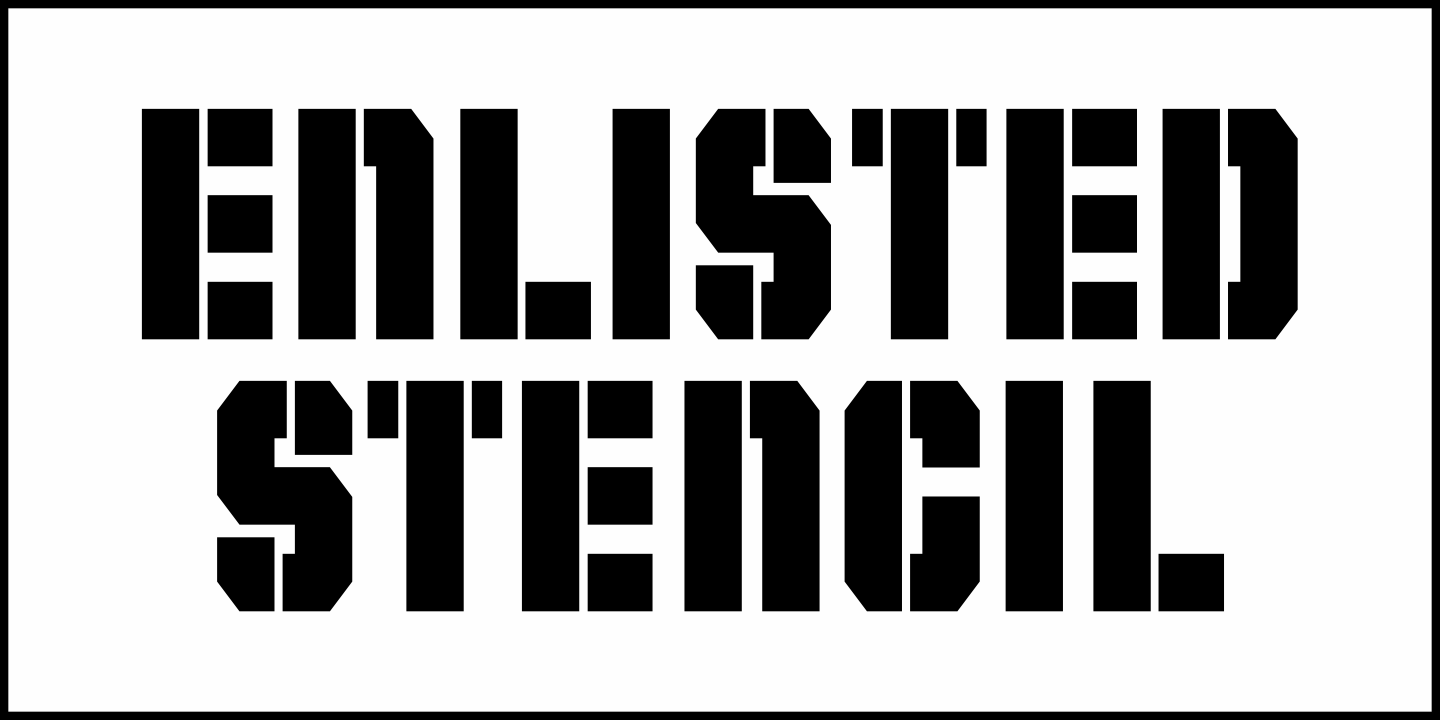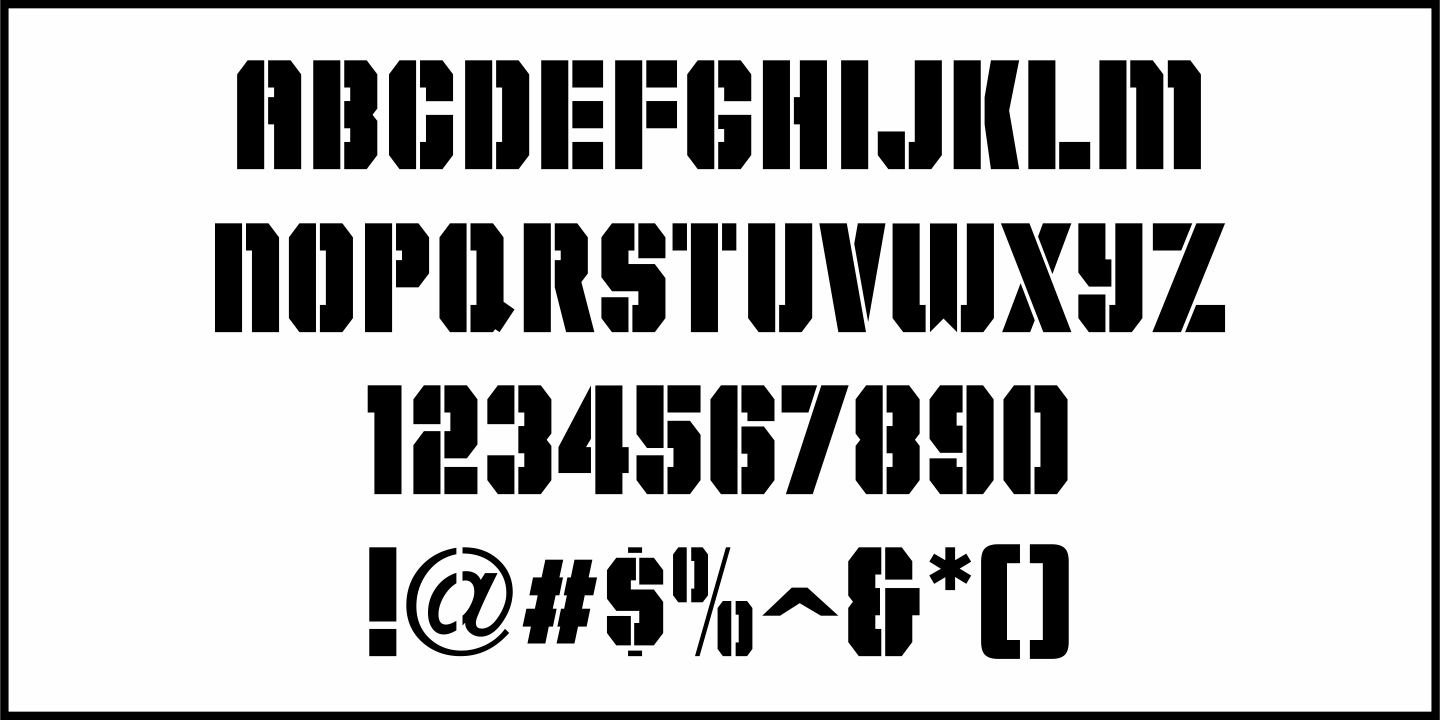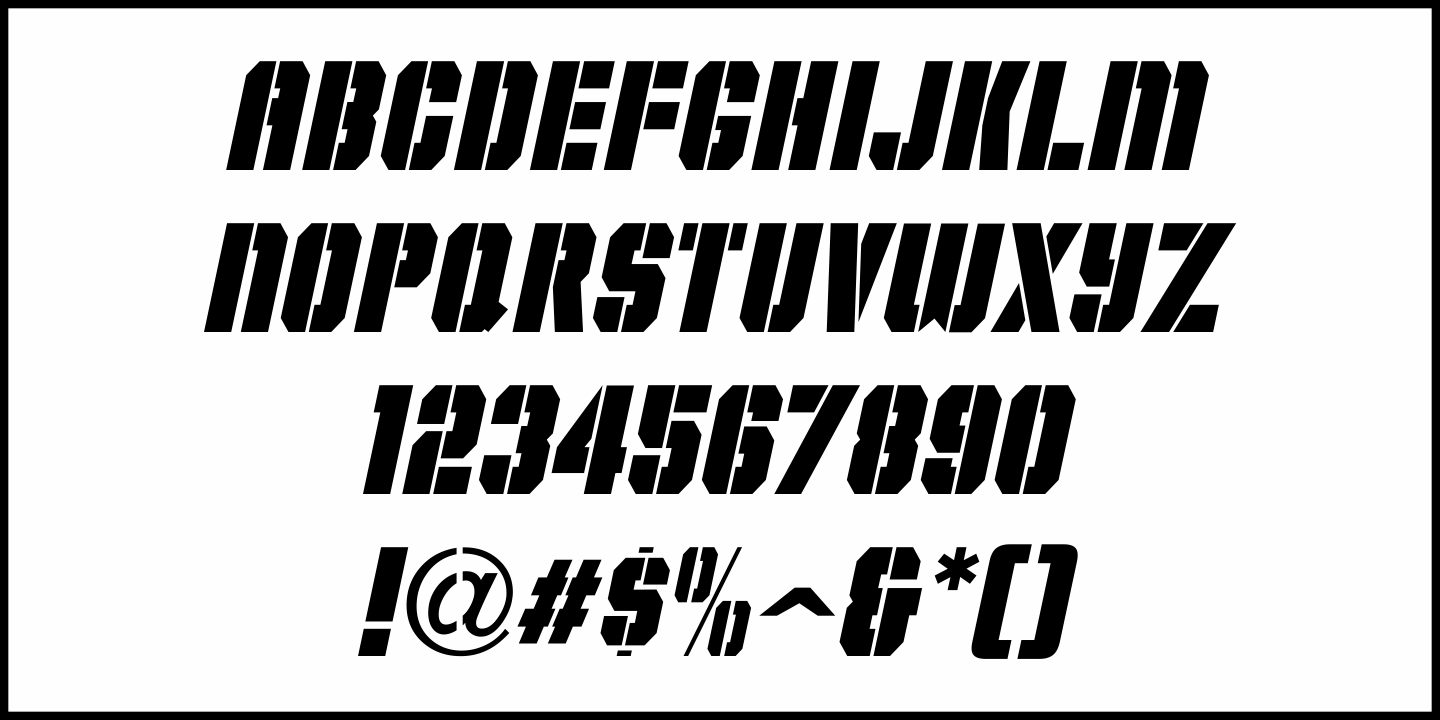
Enlisted Stencil
An unsold 1973 TV pilot for the series 'Catch 22” (based on Joseph Heller's 1961 book and the subsequent 1970 movie) had its title hand lettered in an extra bold stencil type style. Heller coined the phrase as a satire on absurd military rules and bureaucracy.
Although the show's title provided only five characters to work with, there was enough inspiration there to create the military styled Enlisted Stencil JNL, which is available in both regular and oblique versions.
According to Wikipedia: 'A catch-22 is a paradoxical situation from which an individual cannot escape because of contradictory rules or limitations..